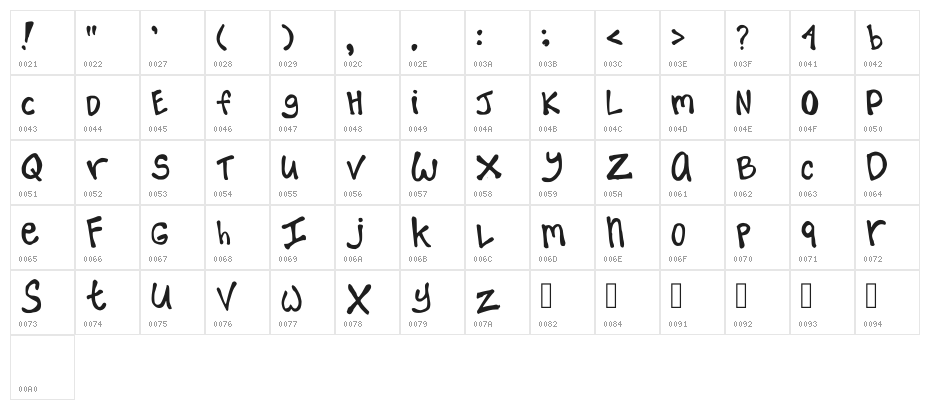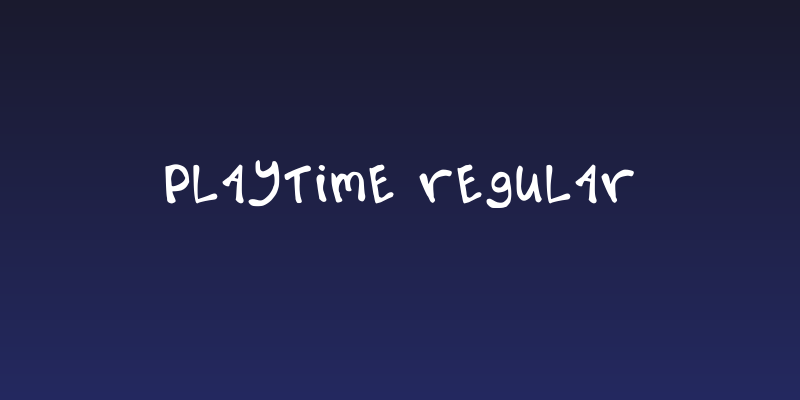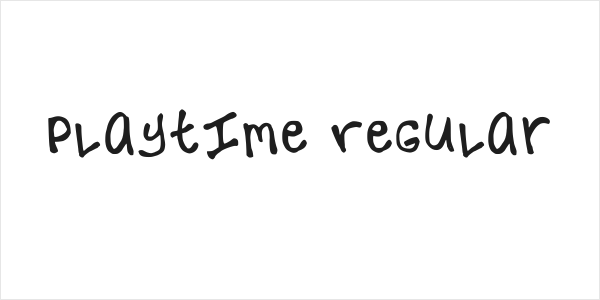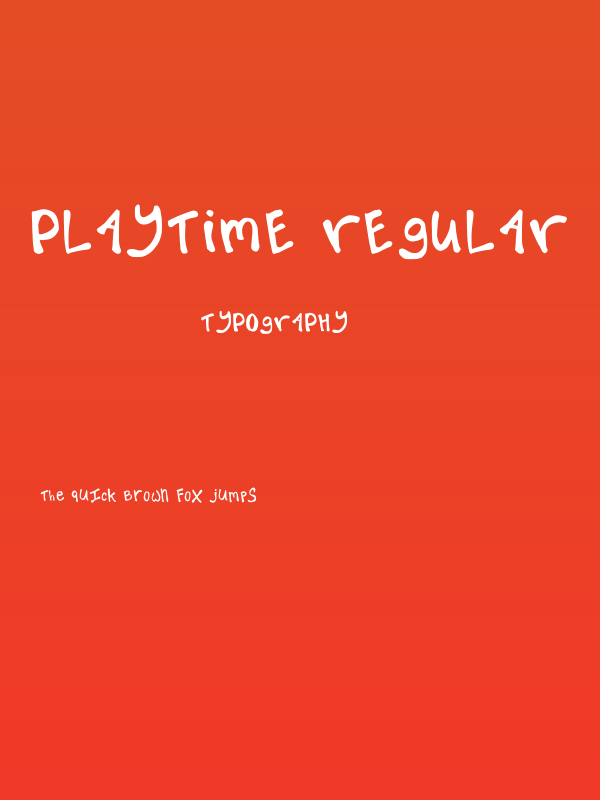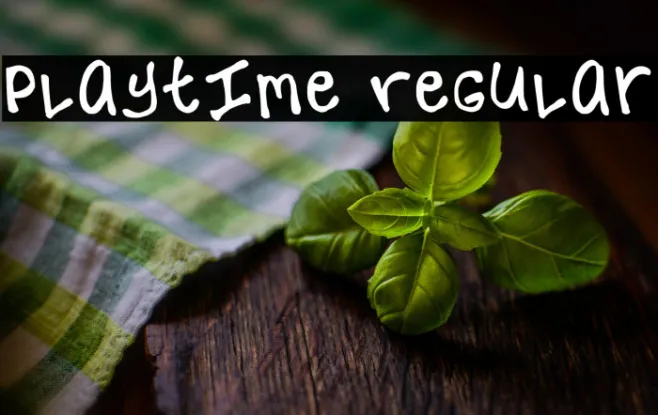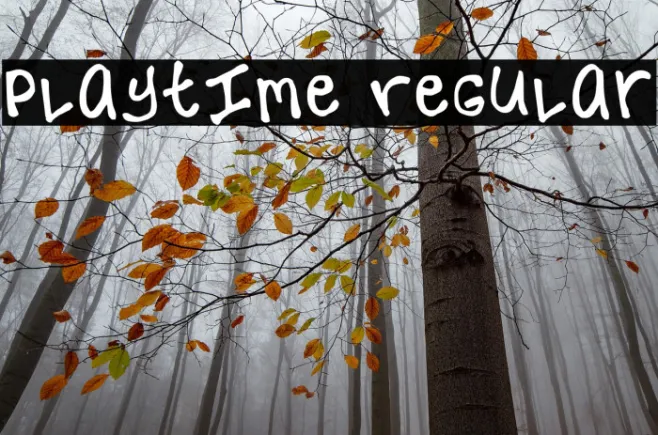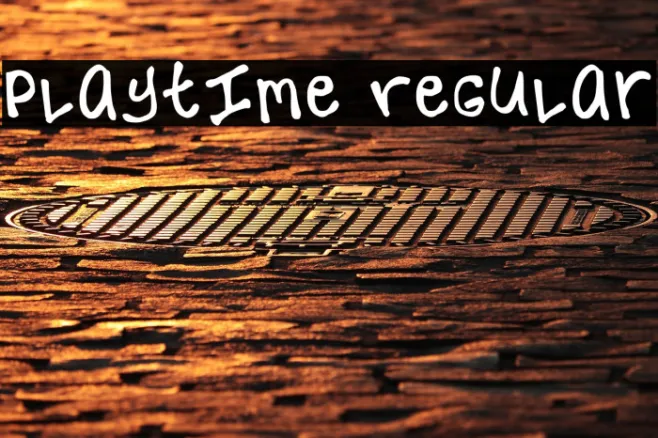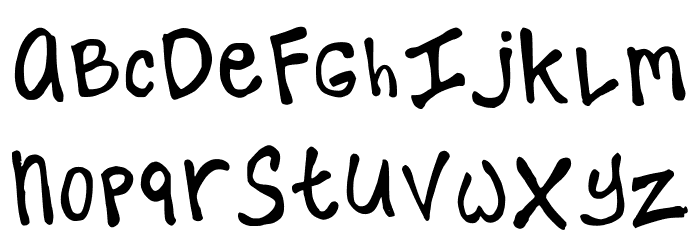
Playtime Regular Font
Playtime Regular Description
This playful and whimsical font features a hand-drawn style with irregular, slightly wavy lines that give it a casual and friendly appearance. The characters are bold and rounded, with a consistent thickness throughout, creating a uniform look. The uppercase and lowercase letters maintain a cohesive style, with a slight tilt that adds to the informal feel. The numerals and special characters are designed to match the playful aesthetic, making this font suitable for creative and fun projects. Its unique charm makes it stand out, while still being legible and versatile.